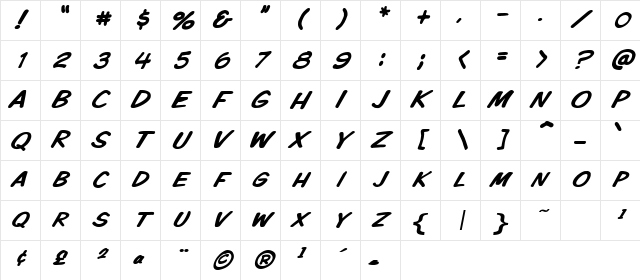
VTCKomixationSCItalic Regular
Designer: WolfBainX
Design Context for VTCKomixationSCItalic
VTCKomixationSCItalic is a composed and adaptable typeface that performs quietly and consistently across a wide range of design contexts. The slanted form adds forward momentum and visual energy.
Pro Tip: Use VTCKomixationSCItalic for emphasis, pull quotes, and subheadings where its slanted energy can add rhythm to the layout.